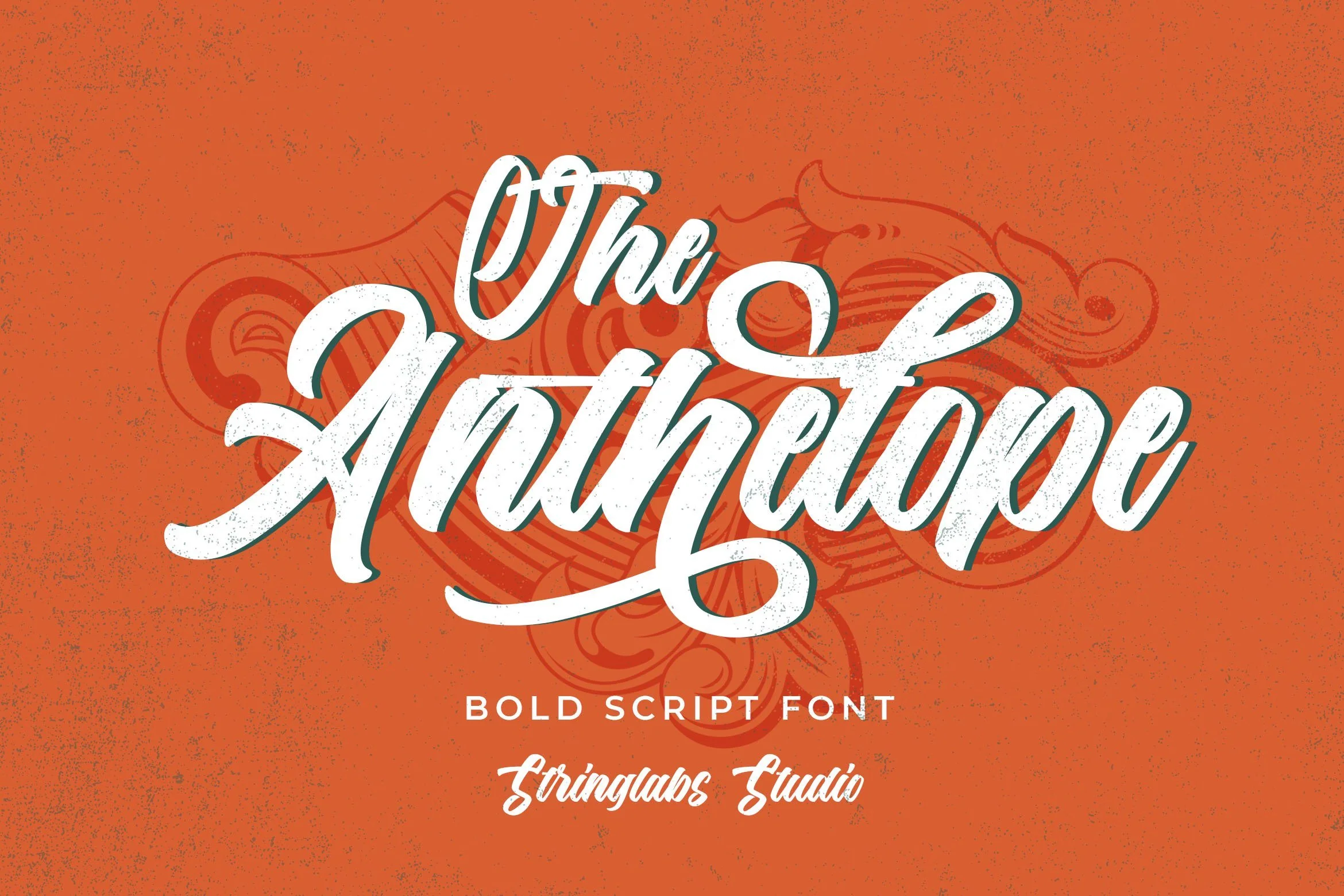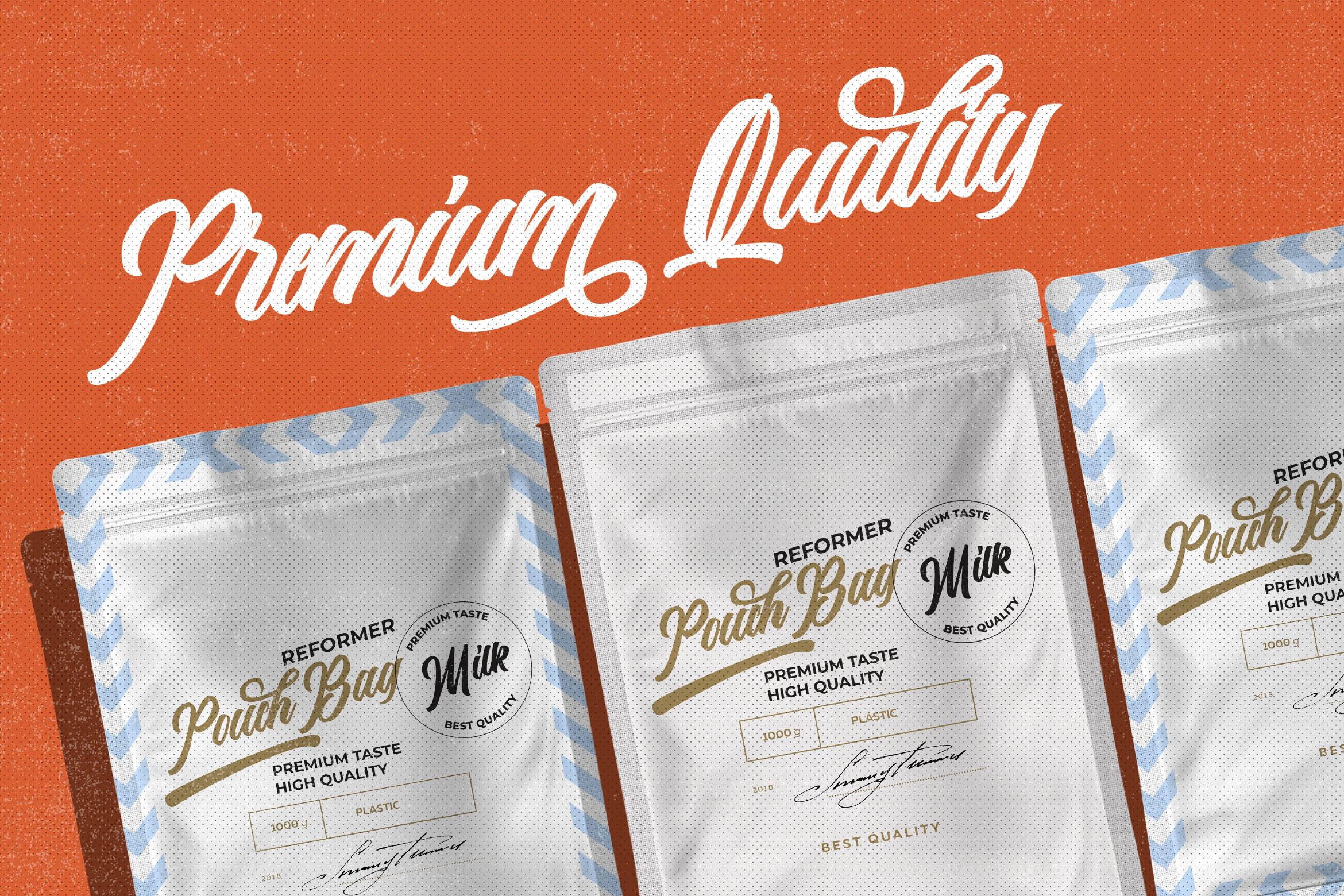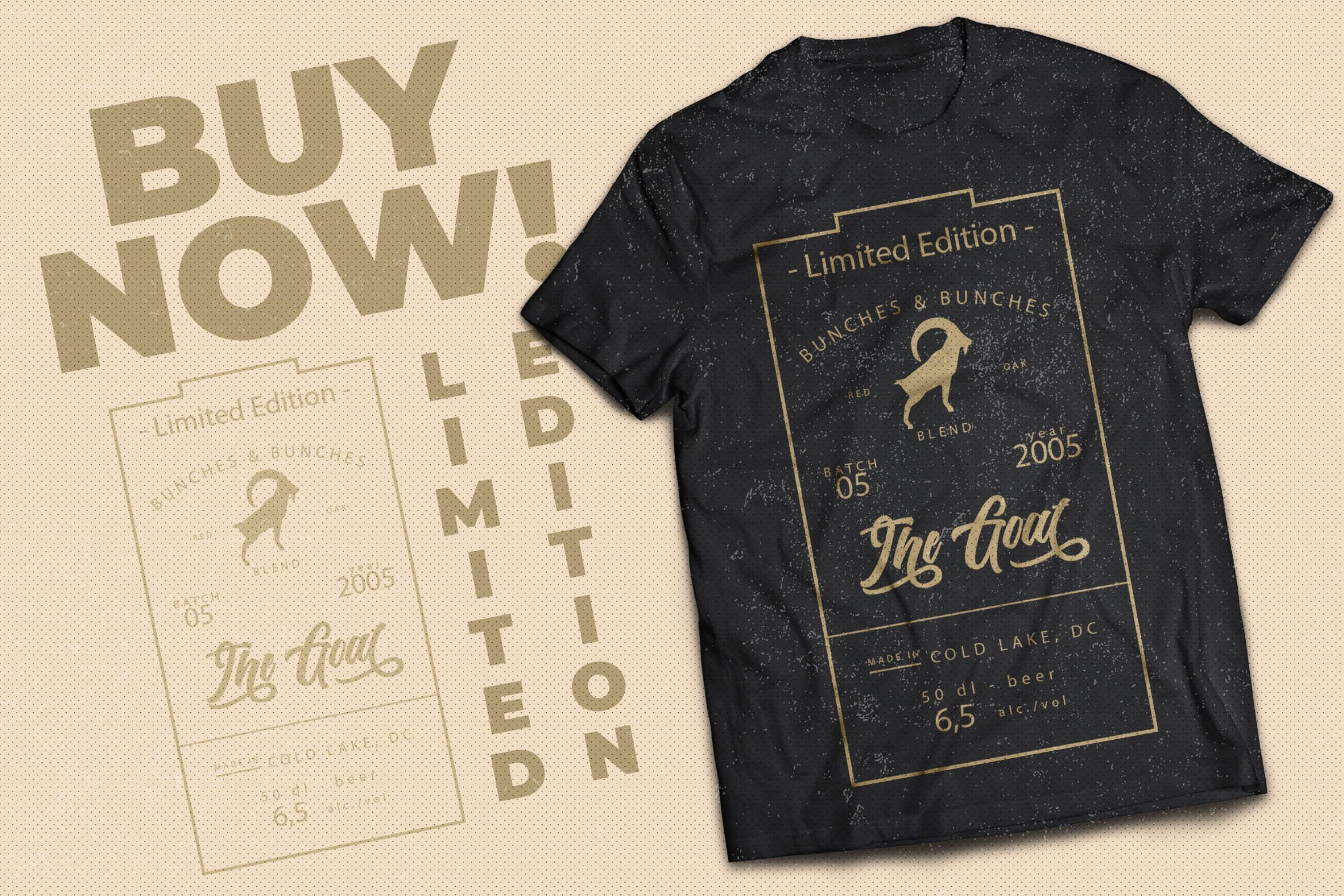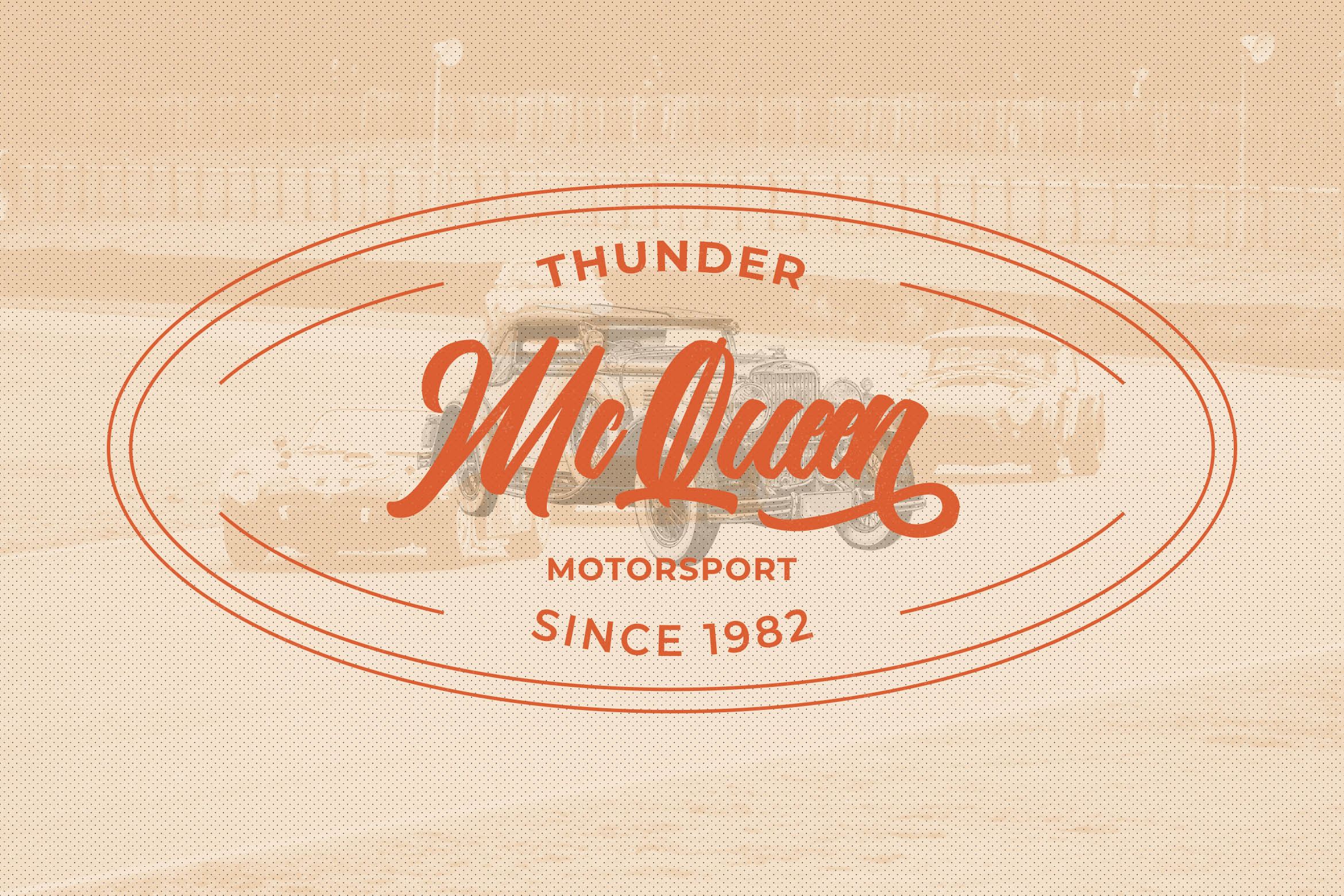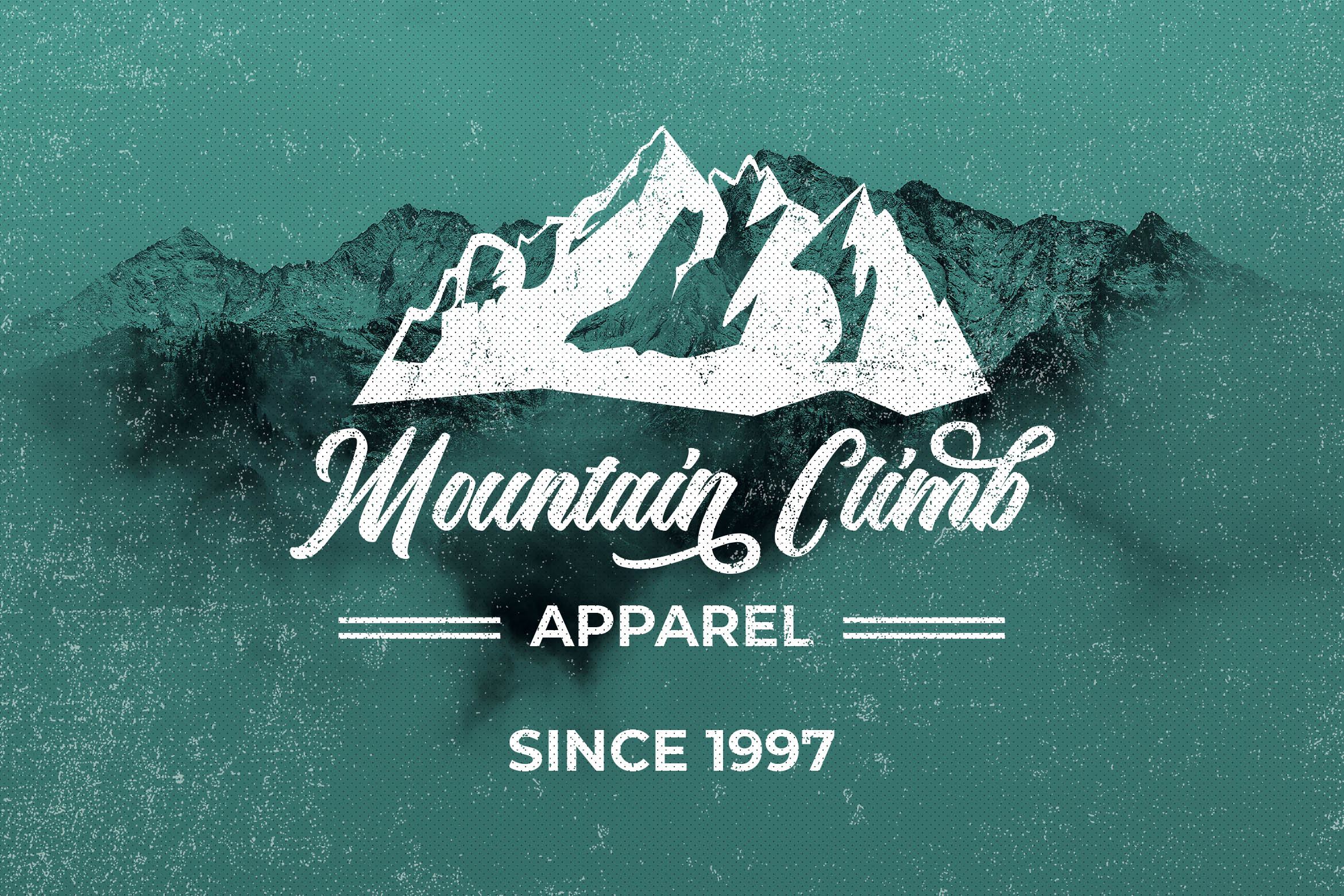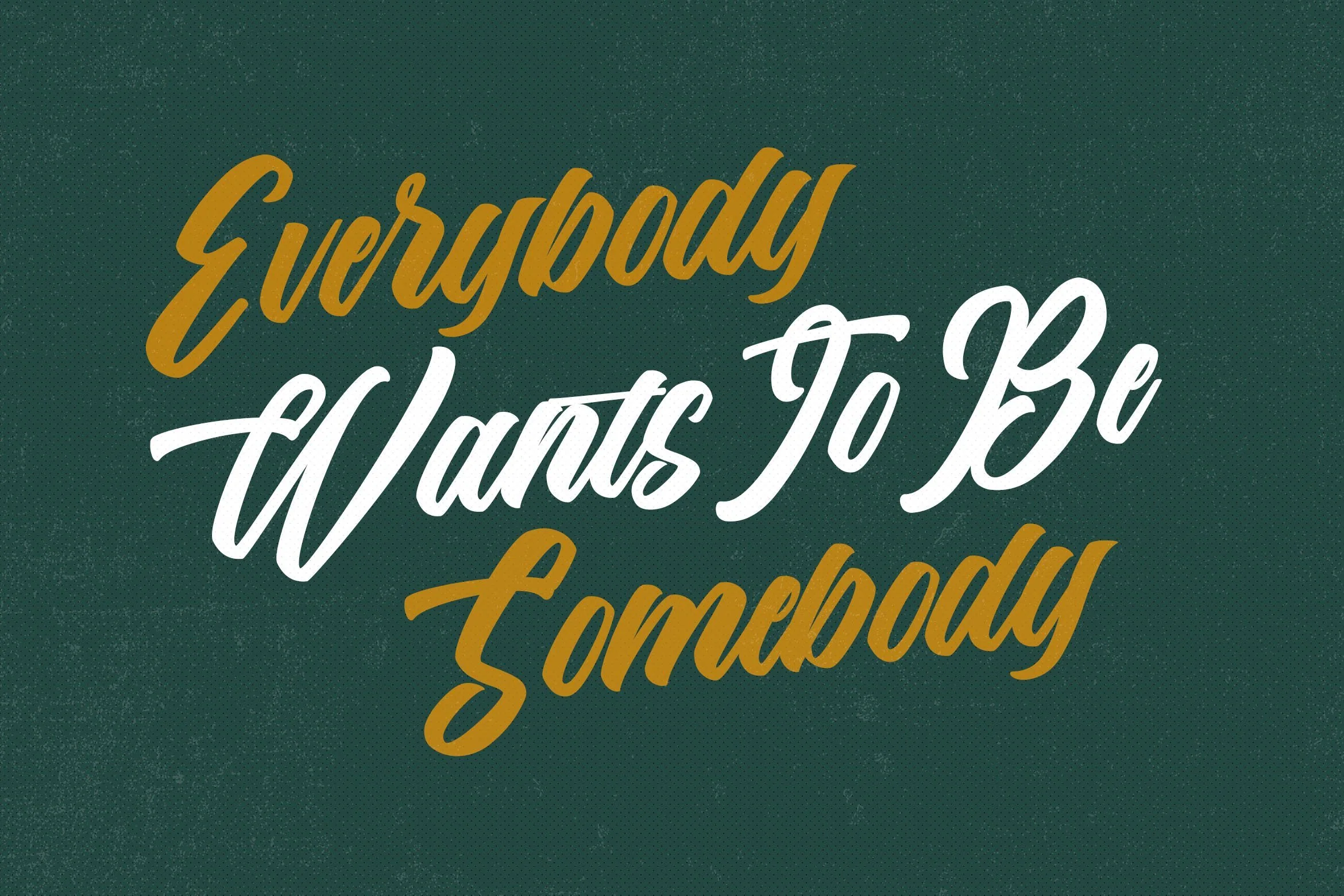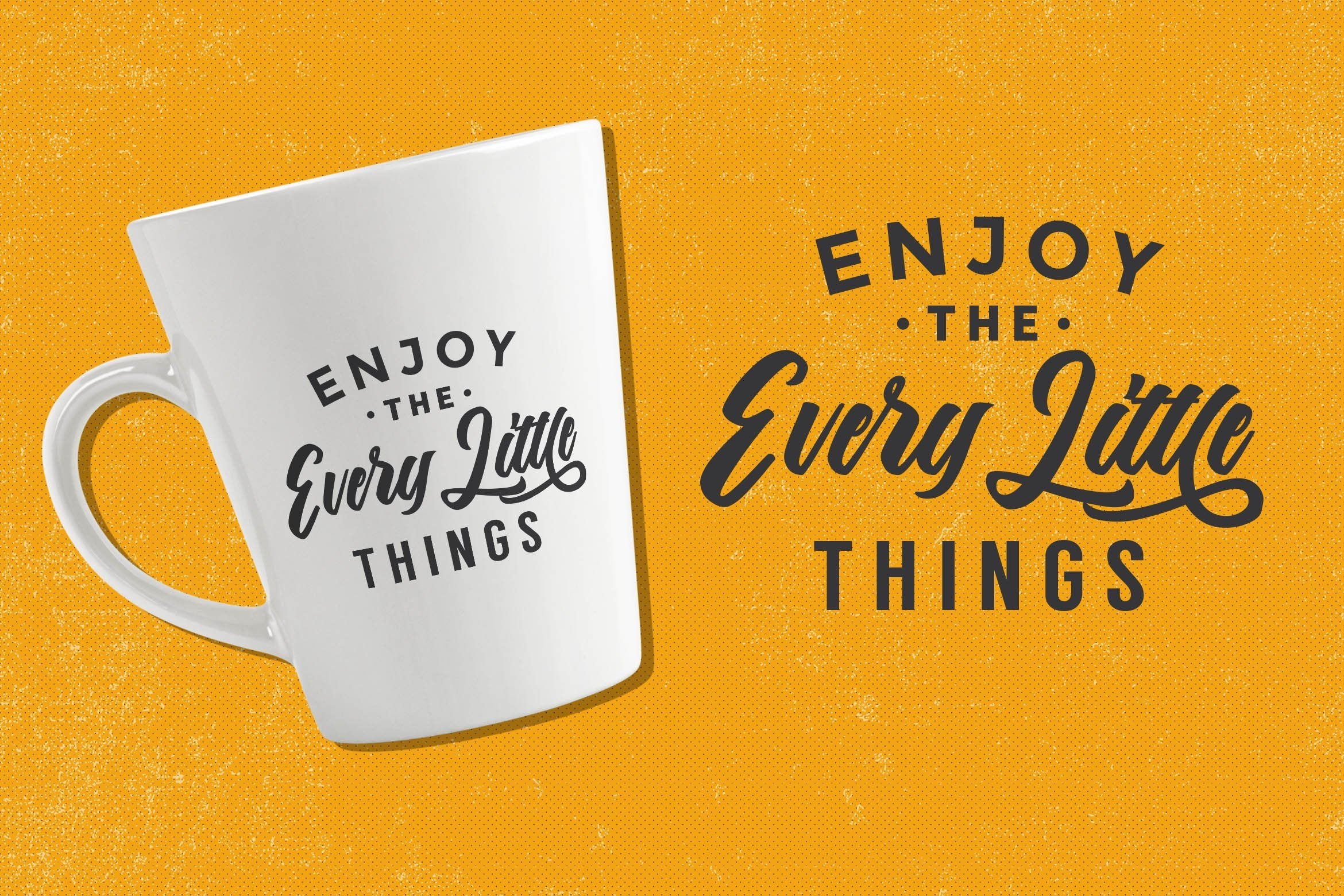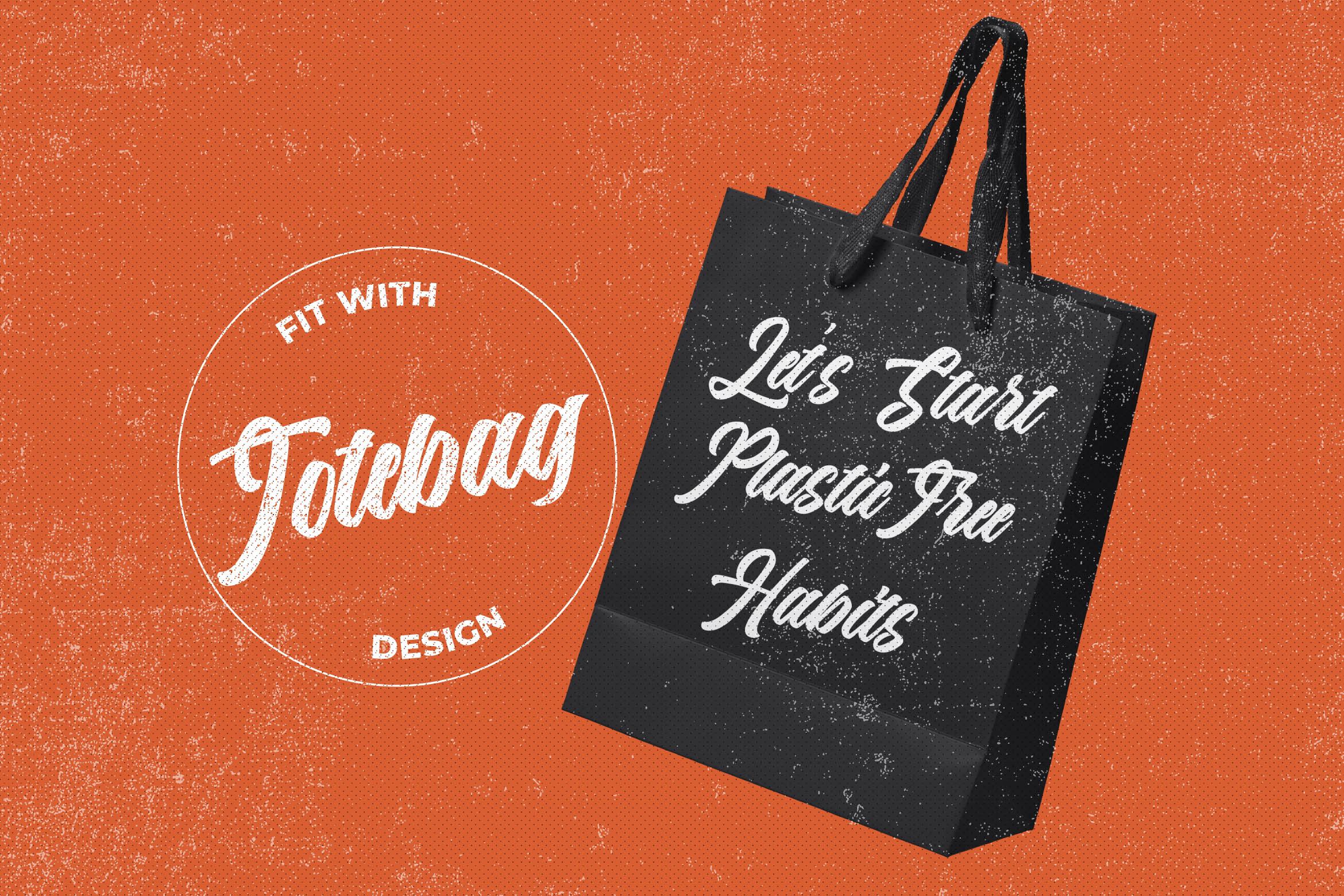
The Anthelope - Retro Bold Script Font
Introducing The Anthelope - Retro Bold Script Font
The Anthelope is a Retro bold script with Groovy style, unique design taste and combine with classic retro style of the 80s, trendy, vintage, and sporty. The Anthelope is perfect for retro lovers, besides this font is also perfect if used for brands such as: barbershop, motorcycle club, clothing, coffee shop, shoe brands, vapor shop, hipster and many more.
- Stylistic Alternate
- Swash